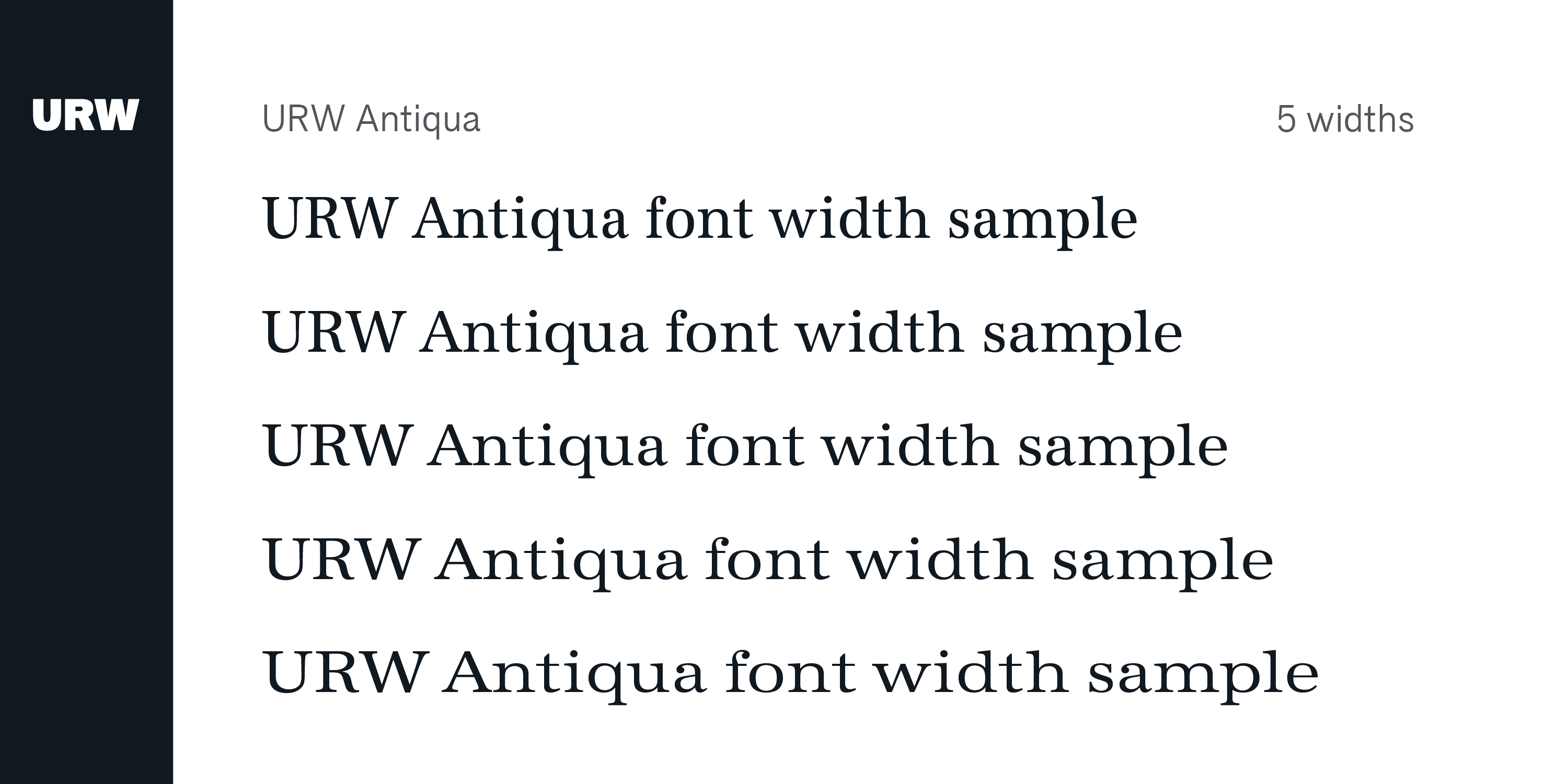
URW Antiqua Font Free Download is a classic serif typeface with a refined and timeless design. Ideal for editorial design, branding, book layouts, websites, and print materials, this font blends traditional letterforms with modern sensibilities, making it versatile for both print and digital applications. URW Antiqua Font ensures excellent readability and brings an elegant, professional appearance to your designs.
With URW Antiqua Font Free Download, you’ll receive a complete set of uppercase letters, lowercase, numbers, and essential punctuation, offering flexibility for a variety of creative projects. Whether you're designing an elegant logo, creating a sophisticated editorial layout, or developing marketing materials, this font ensures a polished and clear aesthetic.
Add a timeless, professional touch to your projects with URW Antiqua Font Free Download. Its classic design makes it a perfect choice for designs that need sophistication, clarity, and a touch of tradition.